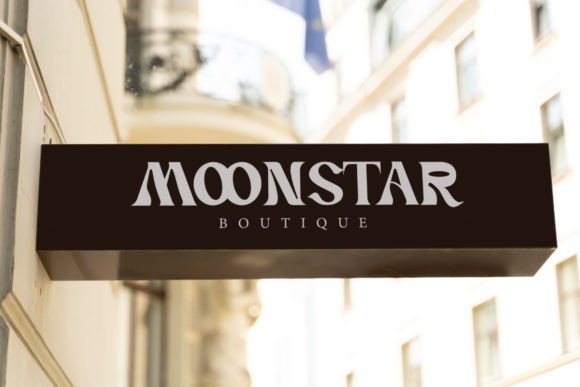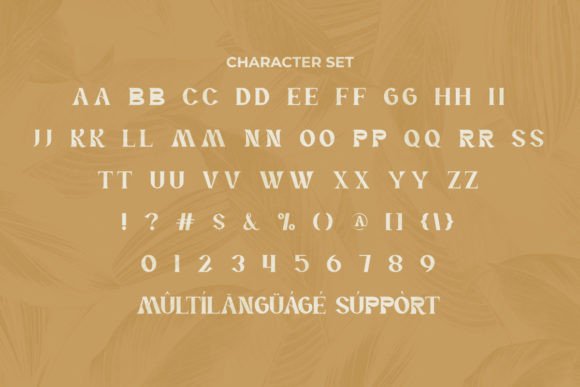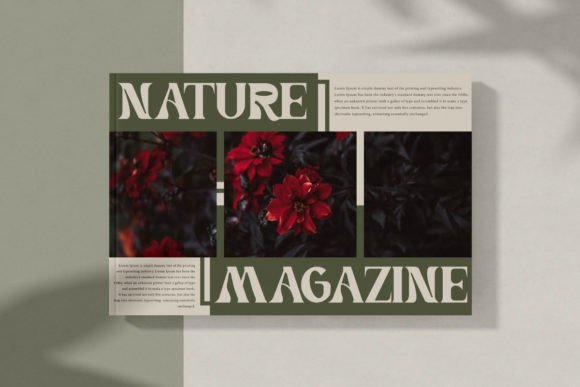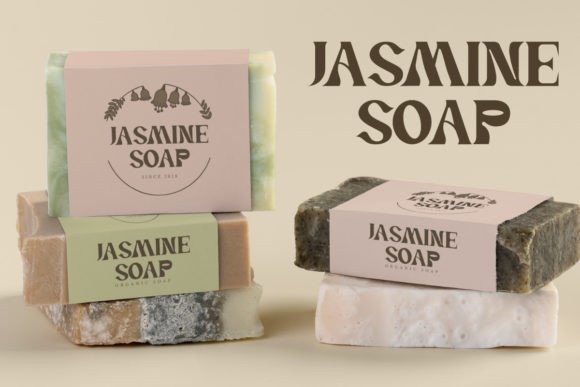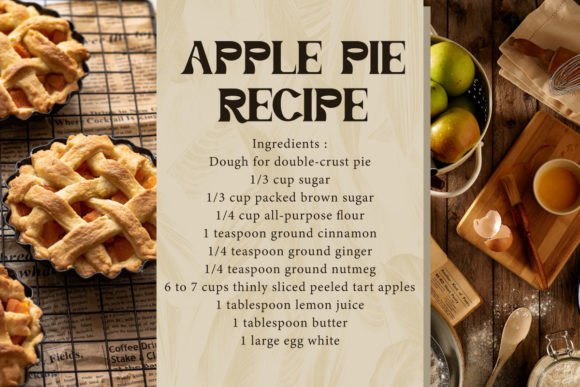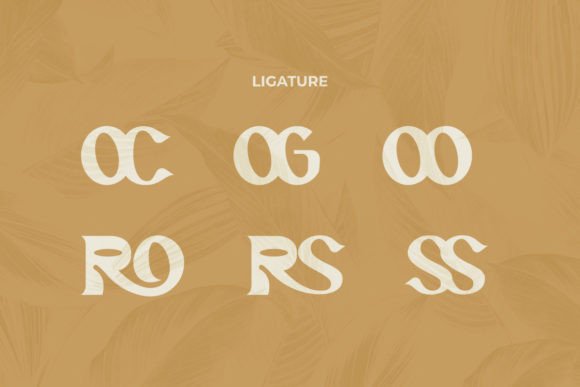
Introduction to Power Passion Font Font
Fonts play a crucial role in design, and the Power Passion Font font is a typeface that brings both character and versatility to any project. Whether you’re working on a branding project, a website, or a print design, the Power Passion Font font offers a unique style that can elevate your work.
Power Passion Font is a stylish modern display font with a summer casual fun style.
This font has unique wavy bold lines which will give it a fresh feel and still easy to read It would be perfect for any project such as a brand logo, brochure, labels, magazine catalog, menu, signage, stationery, title, website, etc.
Key Features of Power Passion Font Font
Why Choose Power Passion Font Font?
The Power Passion Font font is more than just a typeface – it’s a design tool that helps you communicate your message with style and clarity. Its unique character set and versatile design make it suitable for a wide range of applications, from elegant invitations to bold headlines.
With its carefully crafted letterforms and balanced proportions, the Power Passion Font font ensures readability and visual appeal across all mediums.
What makes Power Passion Font font special?
The Power Passion Font font stands out with its unique design, exceptional readability, and versatility across various design applications.